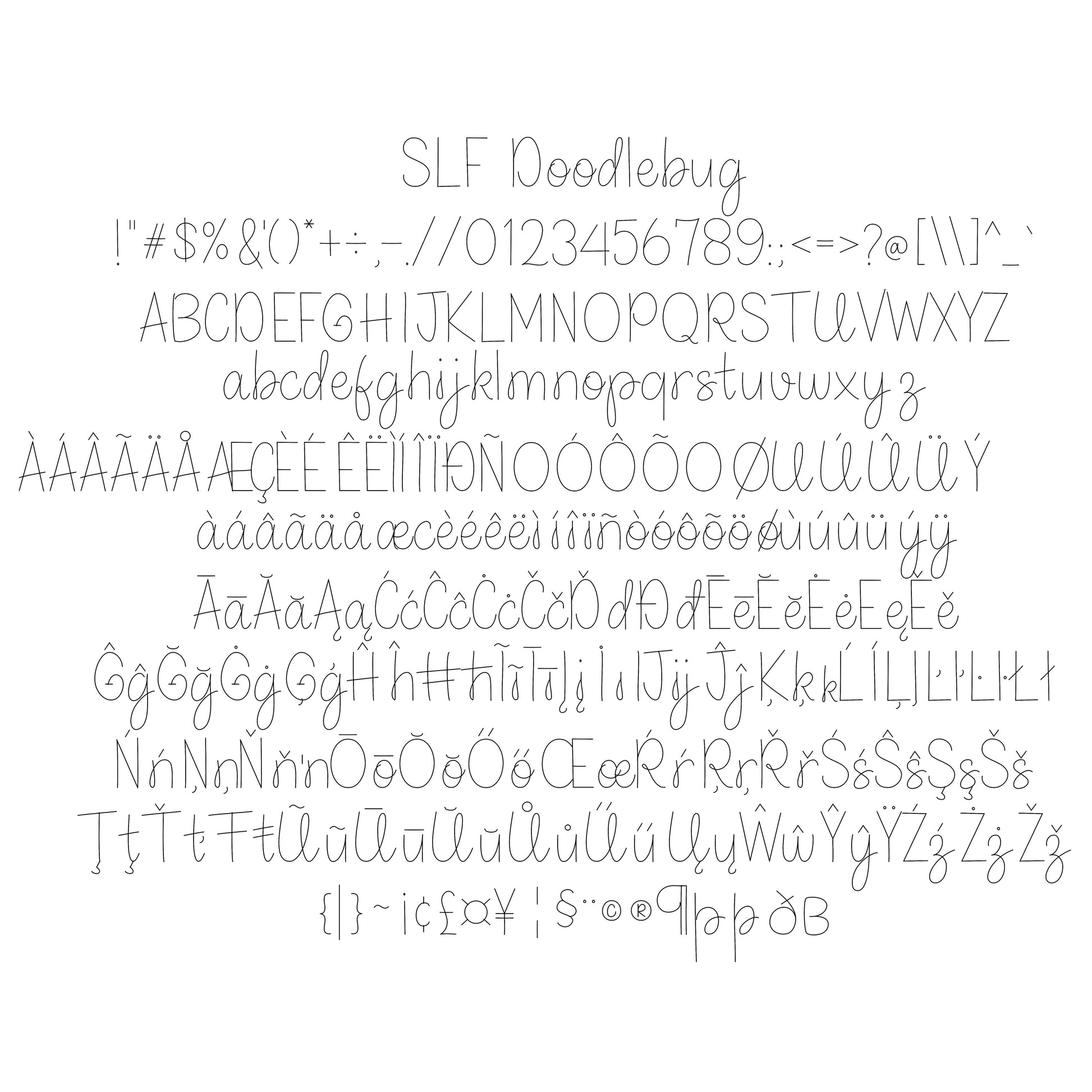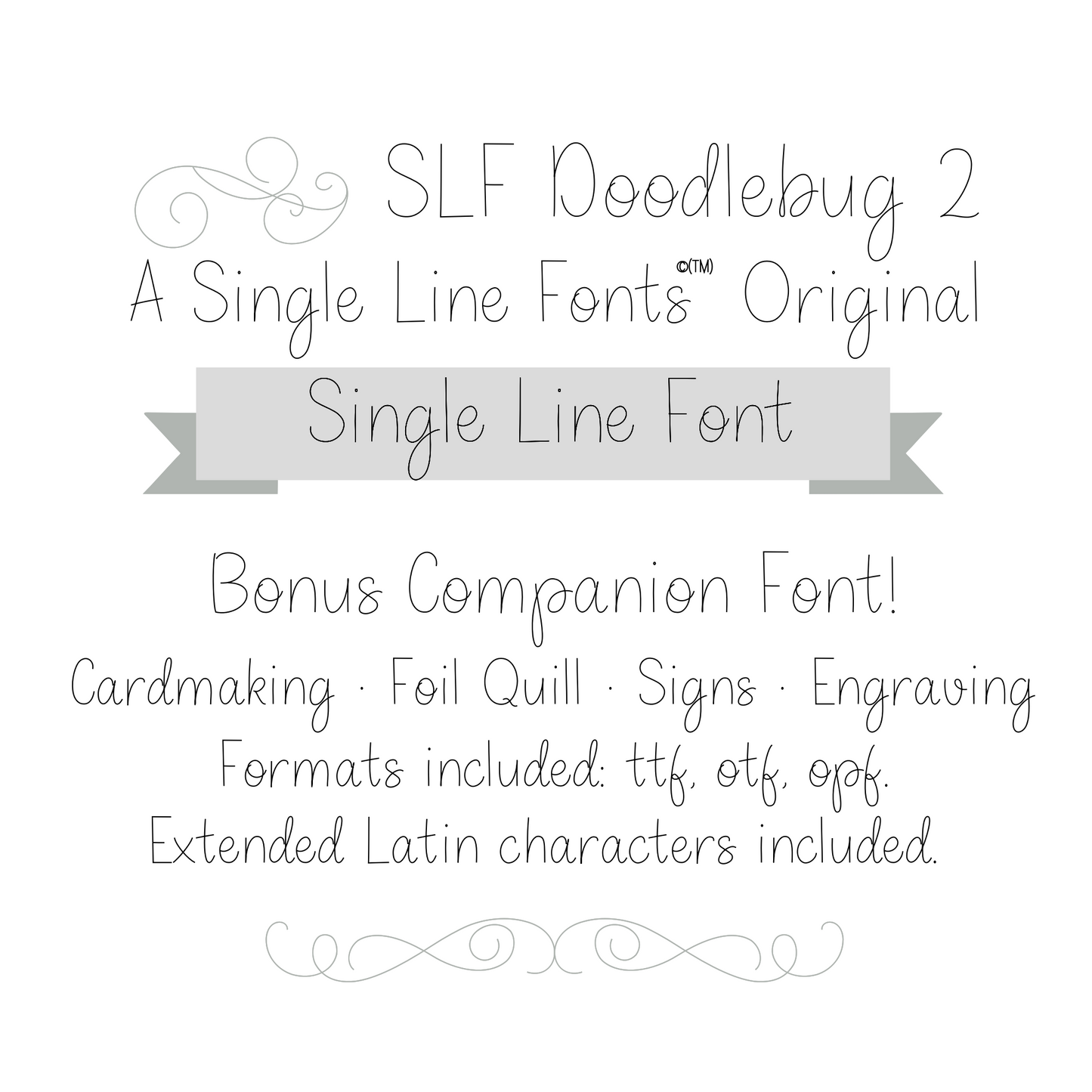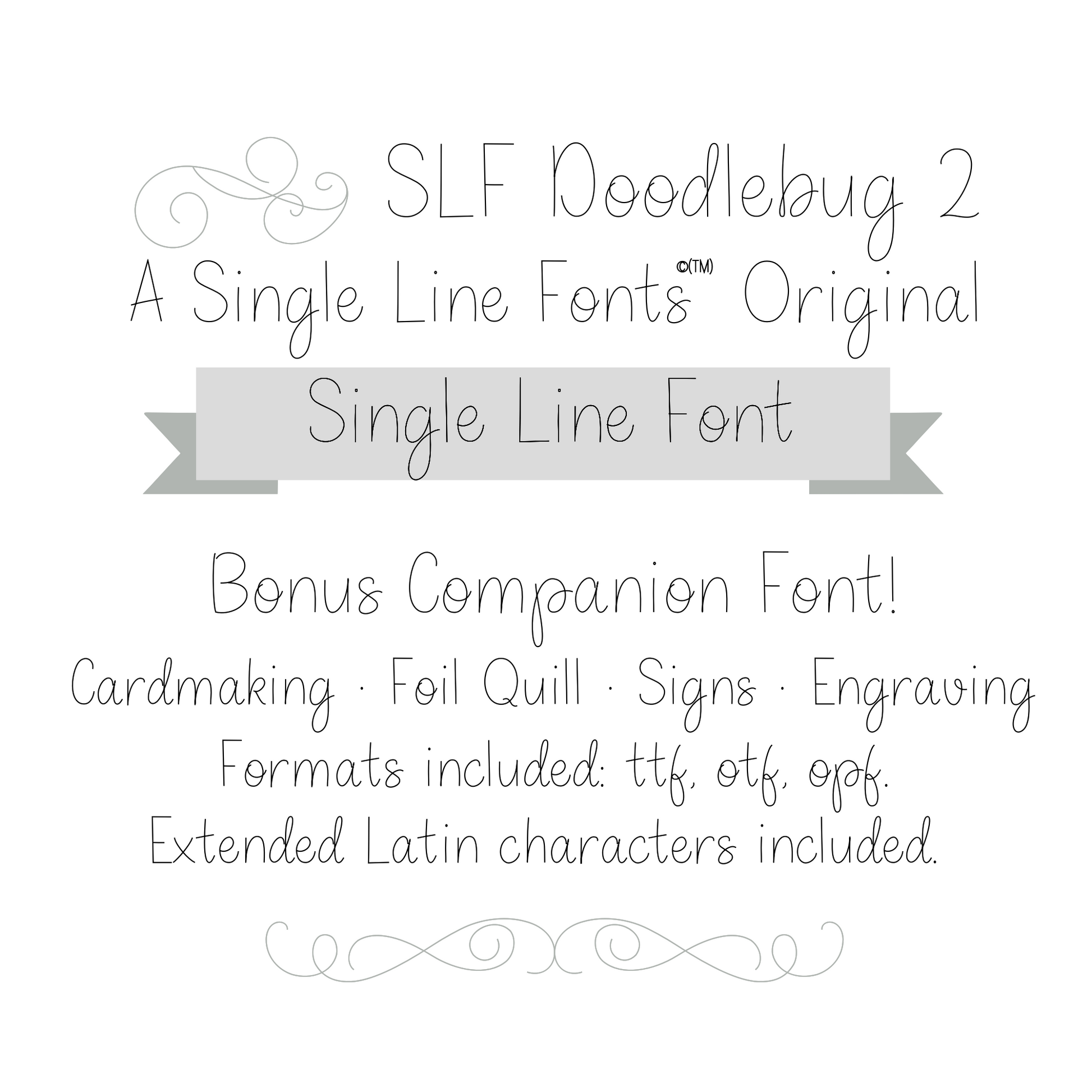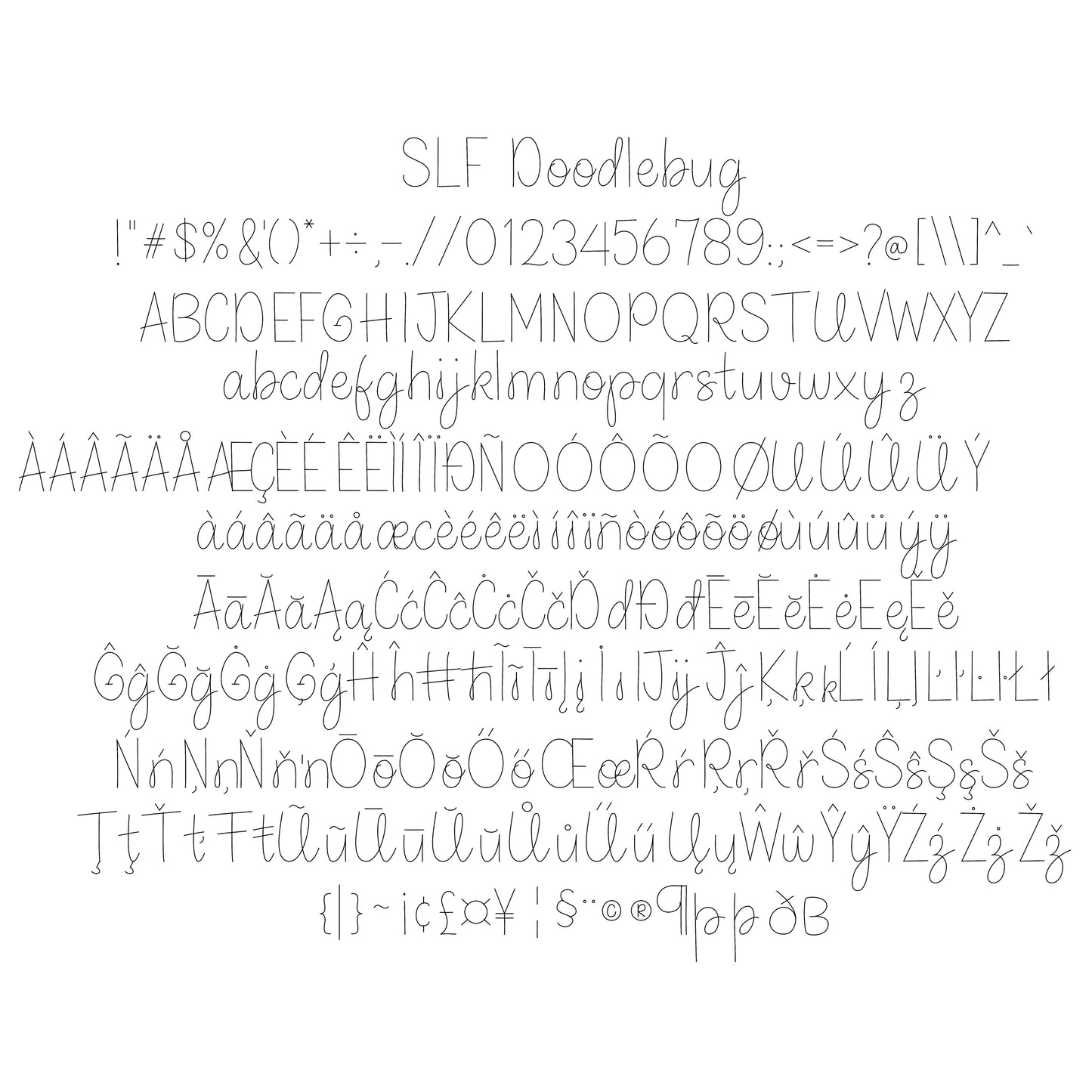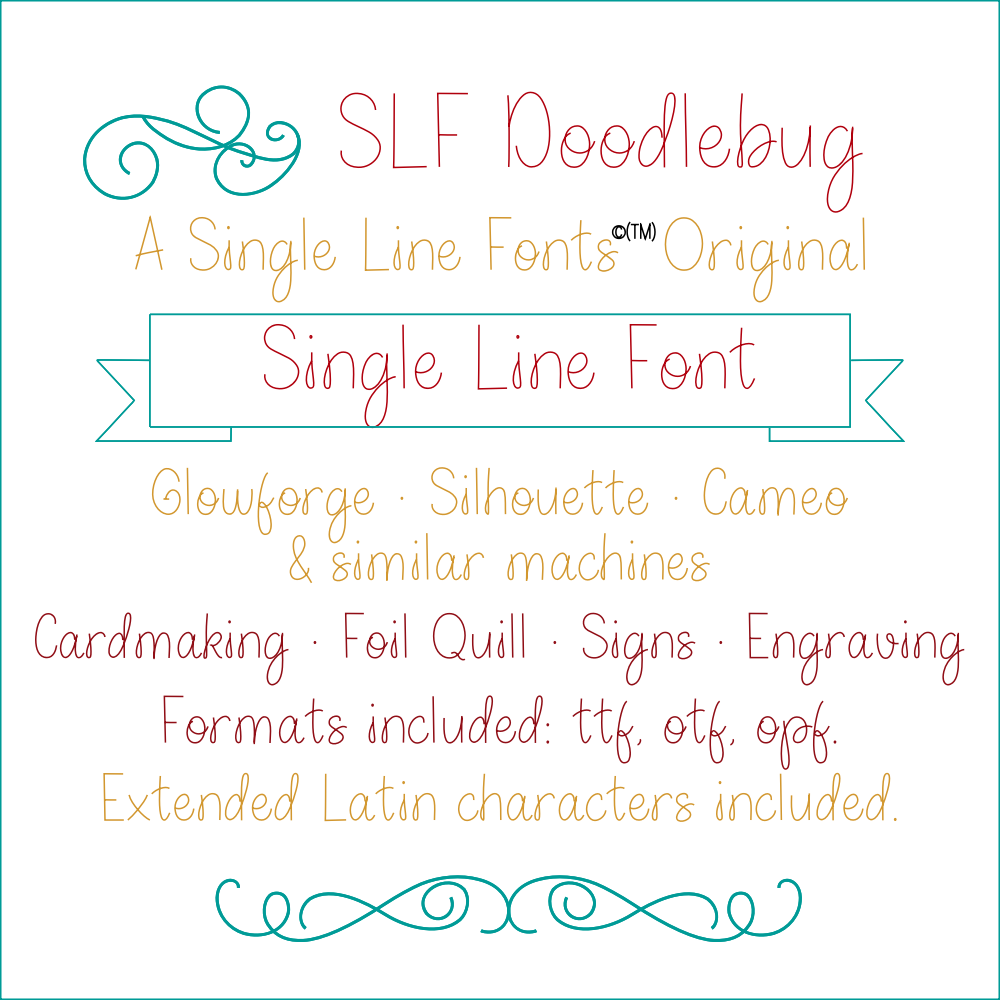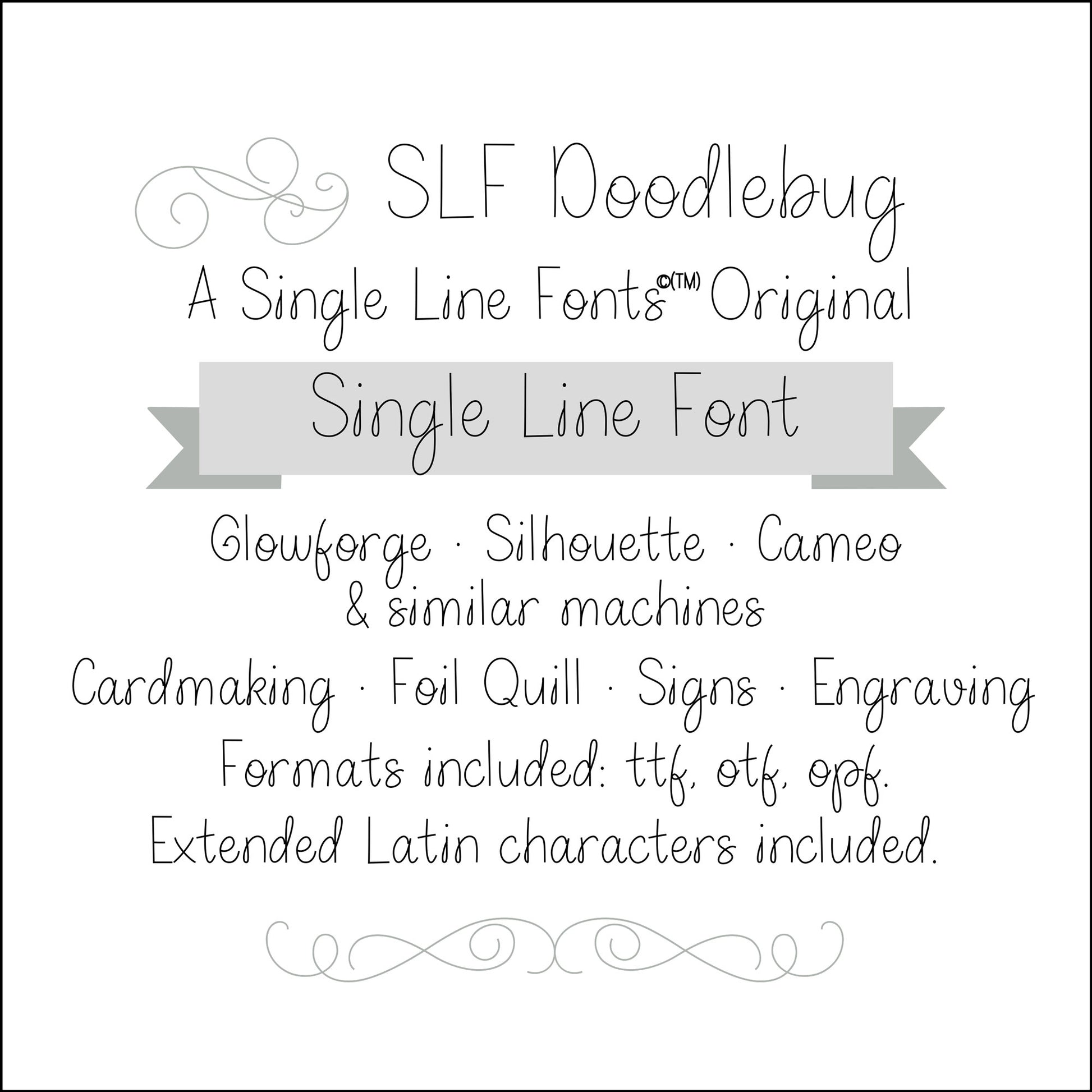
SLF Doodlebug – Playful Single Line Print Font for Engraving & Crafts
SLF Doodlebug is a whimsical and fun single line print font with playful letterforms that bring personality to engraving, scoring, sketch pen tools, CNC work, and creative craft projects. Its quirky shapes are perfect for kids’ crafts, cards, labels, signage, and projects that need a cheerful, hand-drawn style.
This monoline font includes a complete character set with uppercase and lowercase letters, numbers, punctuation, symbols, and accented characters for multilingual support.
• Playful labels, cards, kids’ projects, and creative crafts